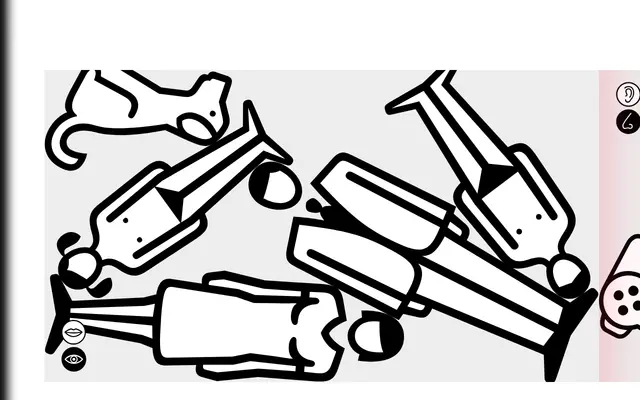
FF Dingbats 2.0
Character Type · Johannes Erler, Henning Skibbe · 2009
A comprehensive symbol font family of over 1,000 pictographic glyphs, revised and expanded in 2009 from Johannes Erler's original 1993 FF Dingbats release for FontFont.
Originally conceived in 1993 as the first wide-ranging dingbats family since Zapf Dingbats, the 2009 revision by Erler and Henning Skibbe overhauled the set to reflect a changed technological landscape, dropping obsolete symbols and adding new ones. The result spans twelve thematic sub-families covering human figures, technics, office objects, arrows, geometric forms, stars, and more, totalling upwards of 1,000 glyphs. It remains a practical and historically grounded resource for designers needing a systematic pictographic system.
A pictorial symbol font composed entirely of non-alphabetic glyphs organised into thematic sets; best classified as display given its purely decorative and functional pictographic purpose rather than any text-setting role.